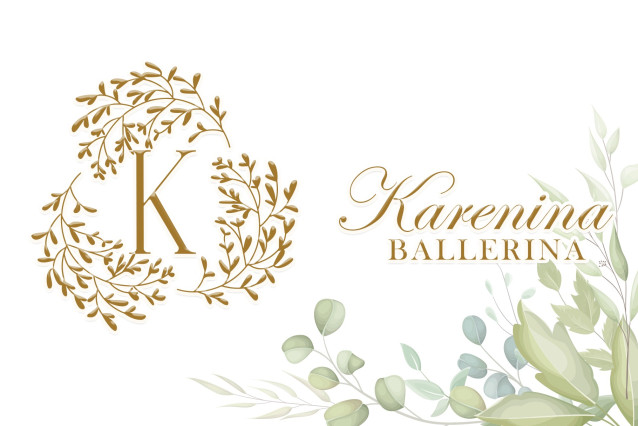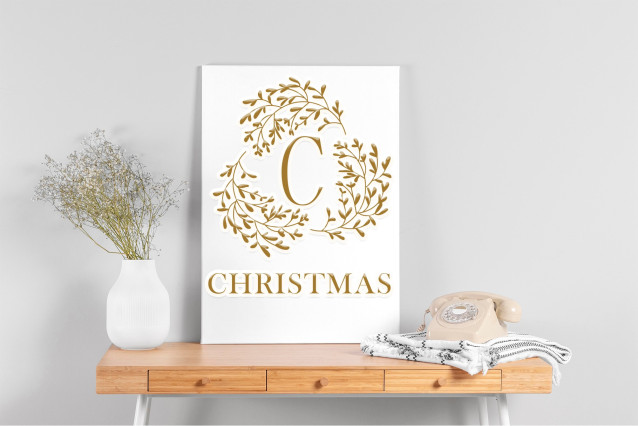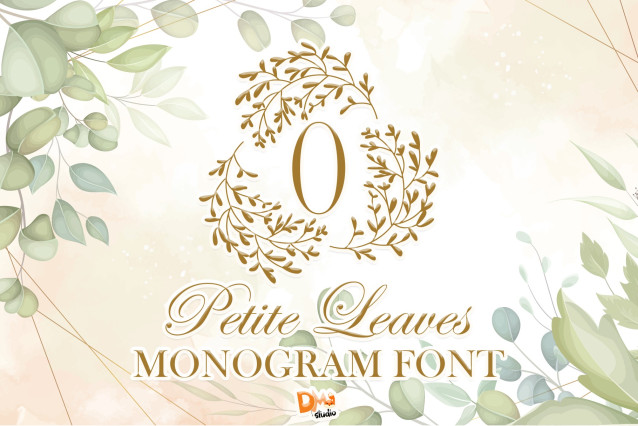
Petite Leaves Monogram Font
Petite Leaves Monogram is a charming collection of monogram letters adorned with tiny, elegant foliage details. This nature-inspired set blends organic softness with decorative elegance, making it ideal for wedding invitations, logo designs, custom gifts, stationery, wall art, and more. The graceful intertwining of leaves around each letter evokes a gentle, handcrafted touch perfect for botanical-themed projects.